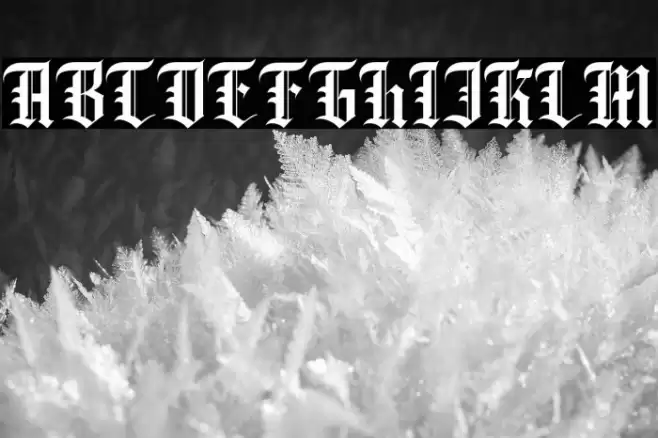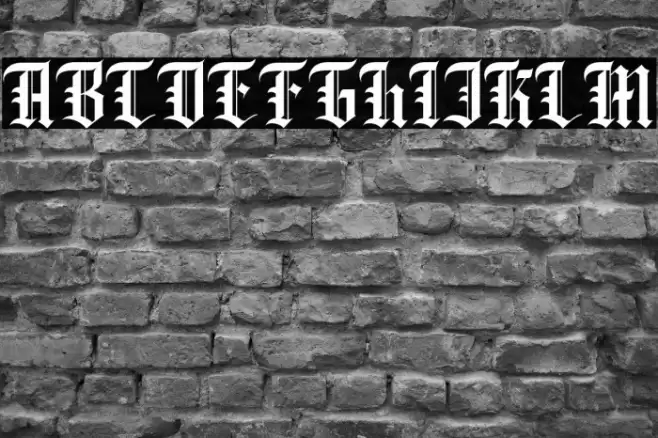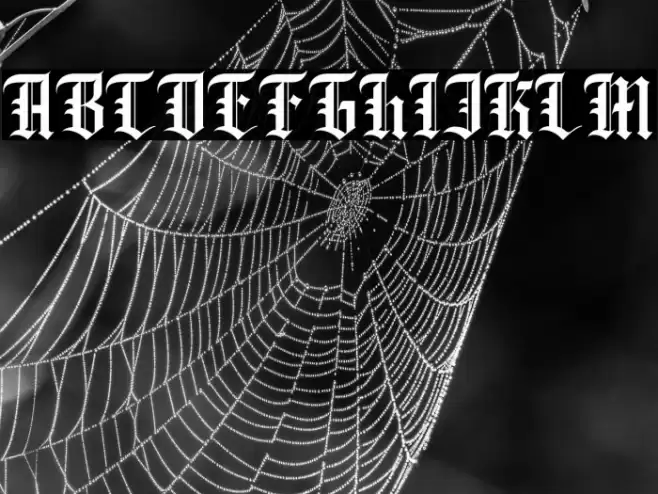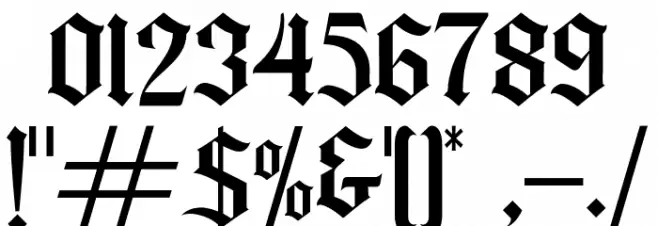
Wilsonwells Font
Wilsonwells Description
This font features a bold and dramatic style, characterized by its intricate and angular letterforms. The uppercase letters are particularly ornate, with sharp edges and a strong presence. The lowercase letters maintain the same level of detail, creating a cohesive and visually striking appearance. The numerals are equally bold, ensuring consistency across all characters. Special characters are designed with the same attention to detail, making them suitable for decorative purposes. This font is reminiscent of traditional blackletter styles, often associated with historical and formal contexts.
A bold, intricate blackletter-style font with dramatic, angular letterforms from Uncategorized fonts.
- Proposed Projects: Ideal for projects requiring a historical or formal aesthetic, such as certificates, invitations, or branding for luxury products.
- Overall Style: Classic
- Use Case: Headlines, Logos, Decorative text